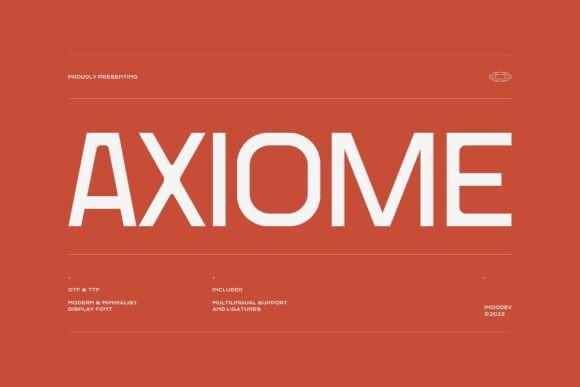
The Designer’s Delight: Axiome Font
Axiome Font: A Modern Classic
Axiome is a modern, minimalist display typeface that masterfully balances crisp geometry with subtle humanist details. Each letterform is crafted with a consistent monoline stroke, making it perfect for a variety of design applications, including branding, editorial, web, and poster design.
- ✨ Clean and elegant design: Axiome’s geometric shapes and subtle humanist touches make it a versatile font for various design projects.
- ✅ Consistent monoline stroke: The font’s consistent stroke width creates a sense of harmony and balance, making it perfect for headlines and titles.
- 💡 Excellent legibility: Axiome’s clear and concise letterforms ensure that your message is conveyed effectively, even at smaller font sizes.
- 🤔 Limited use in body text: While Axiome excels in display settings, it may not be the best choice for lengthy body text due to its geometric nature.
- ⚠️ Some glyphs may require adjustment: Depending on the design, some glyphs, such as the ampersand or currency symbols, might require manual adjustment to fit perfectly.
Axiome Font was designed with the goal of creating a modern, versatile typeface that would meet the demands of contemporary design. Inspired by the works of renowned typographers, the designer aimed to craft a font that would balance geometric precision with humanist warmth. The result is a font that is both elegant and approachable, perfect for a wide range of design applications.
| What is Axiome Font best suited for? | Axiome Font is ideal for branding, editorial, web, and poster design, particularly in display settings where a modern, elegant look is desired. |
| Can I use Axiome Font for body text? | While Axiome Font can be used for body text, it may not be the best choice due to its geometric nature. It’s recommended to use it in display settings or in combination with a complementary font for body text. |
| Does Axiome Font support OpenType features? | Yes, Axiome Font supports OpenType features, including stylistic alternates, ligatures, and glyphs, which can be accessed in compatible software. |